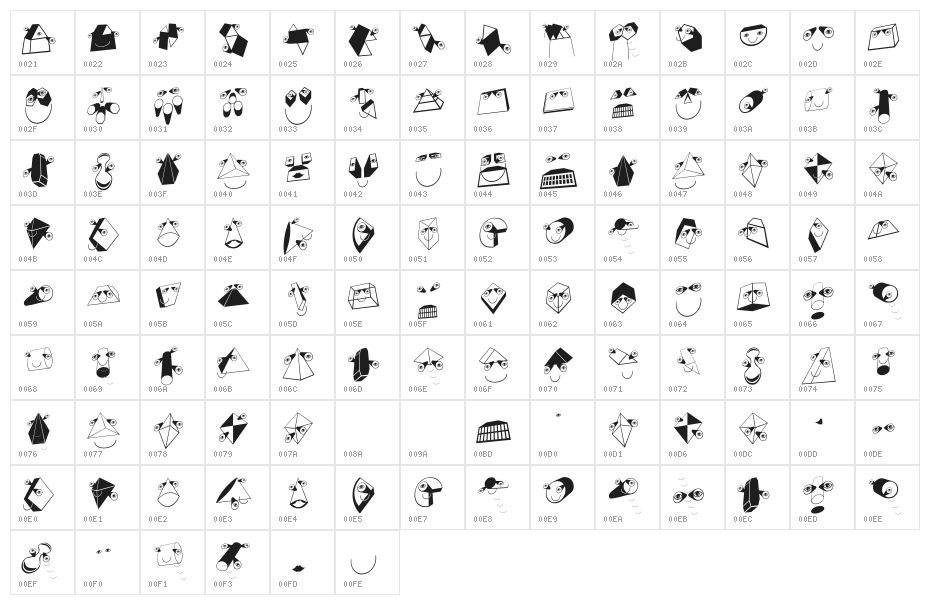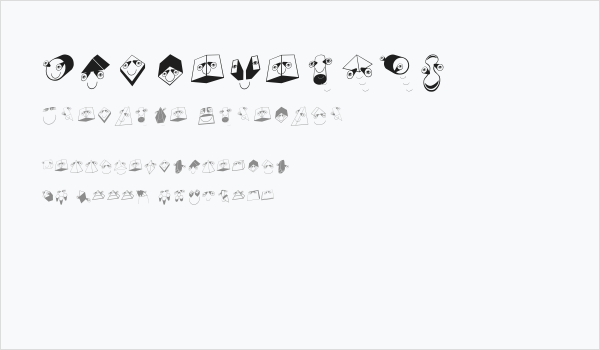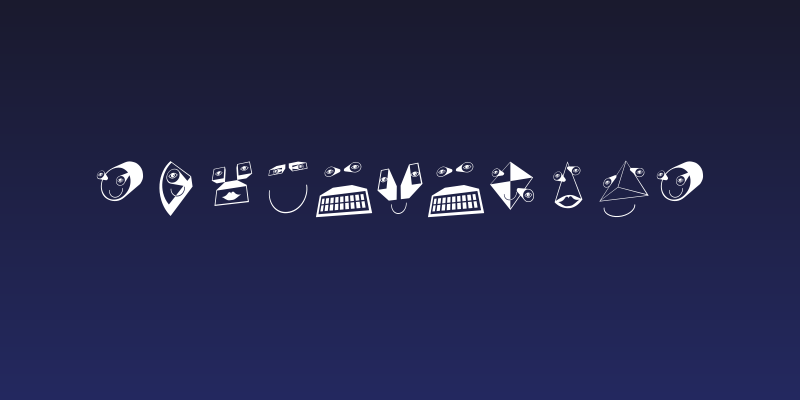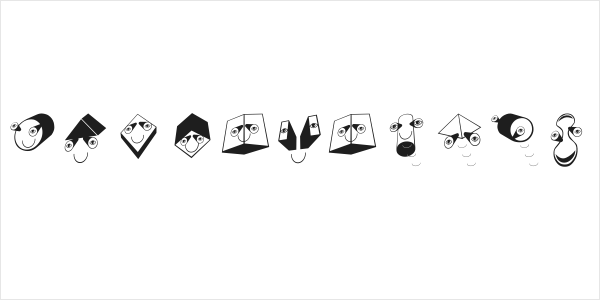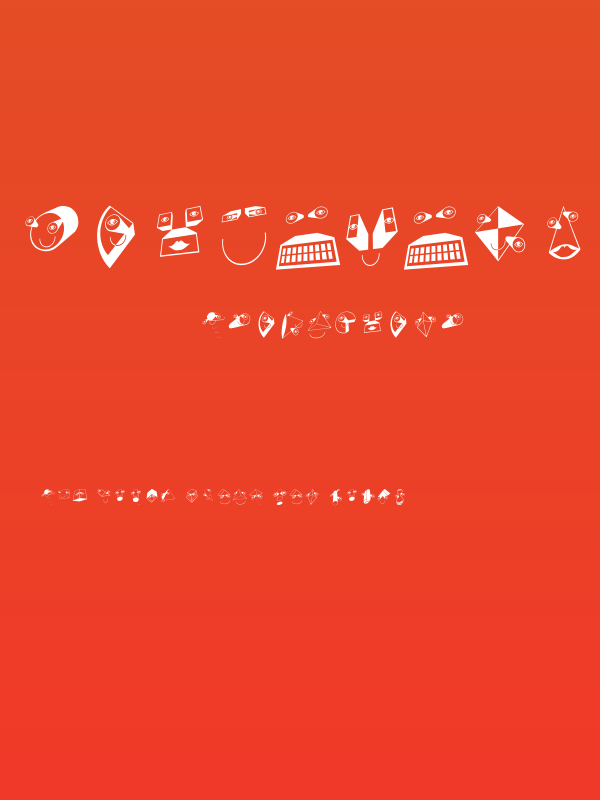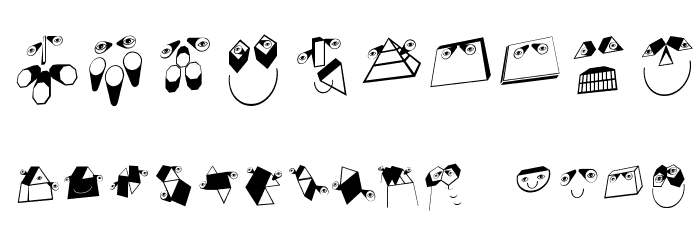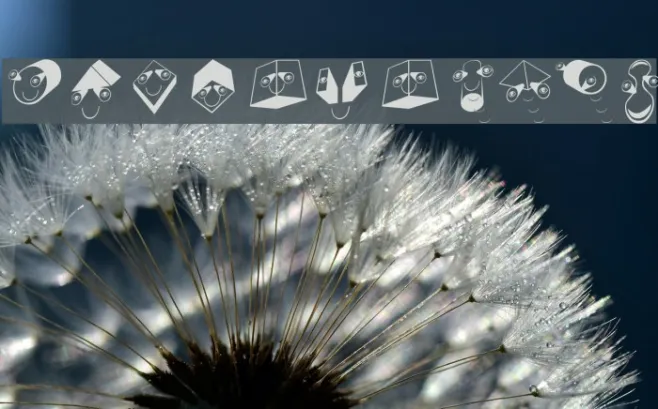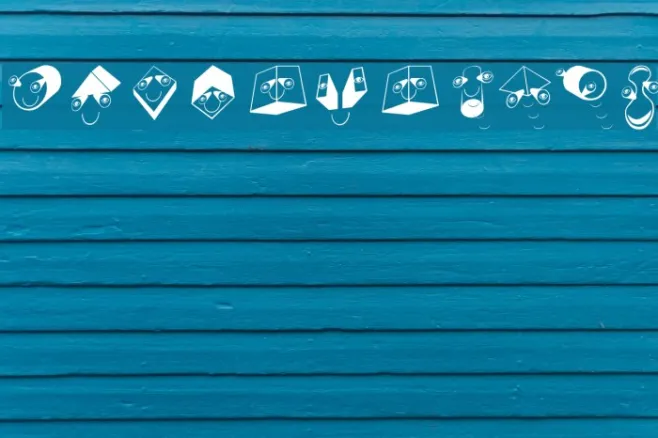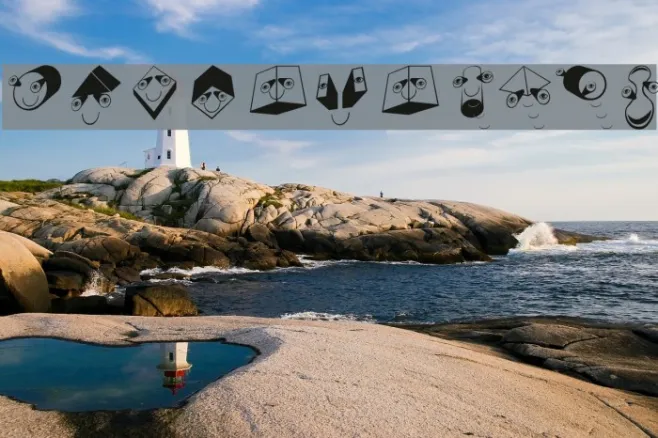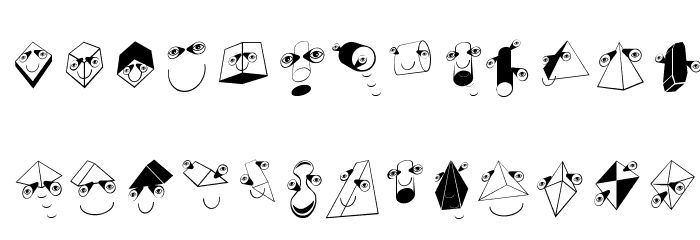
SpaceBeings Font
SpaceBeings Description
This is not a valid font. The image contains abstract, geometric shapes resembling faces or creatures, rather than recognizable typographic characters. Each shape is unique, featuring various combinations of lines, curves, and filled areas, giving them a playful and artistic appearance. These elements do not correspond to any standard alphabet or numerical system, making them unsuitable for typical font usage.
| Overall Style | Artistic, Abstract |
| Use Case | Decorative art, Creative projects |
| Proposed Projects | Art installations, graphic design elements, or educational tools for creativity. |